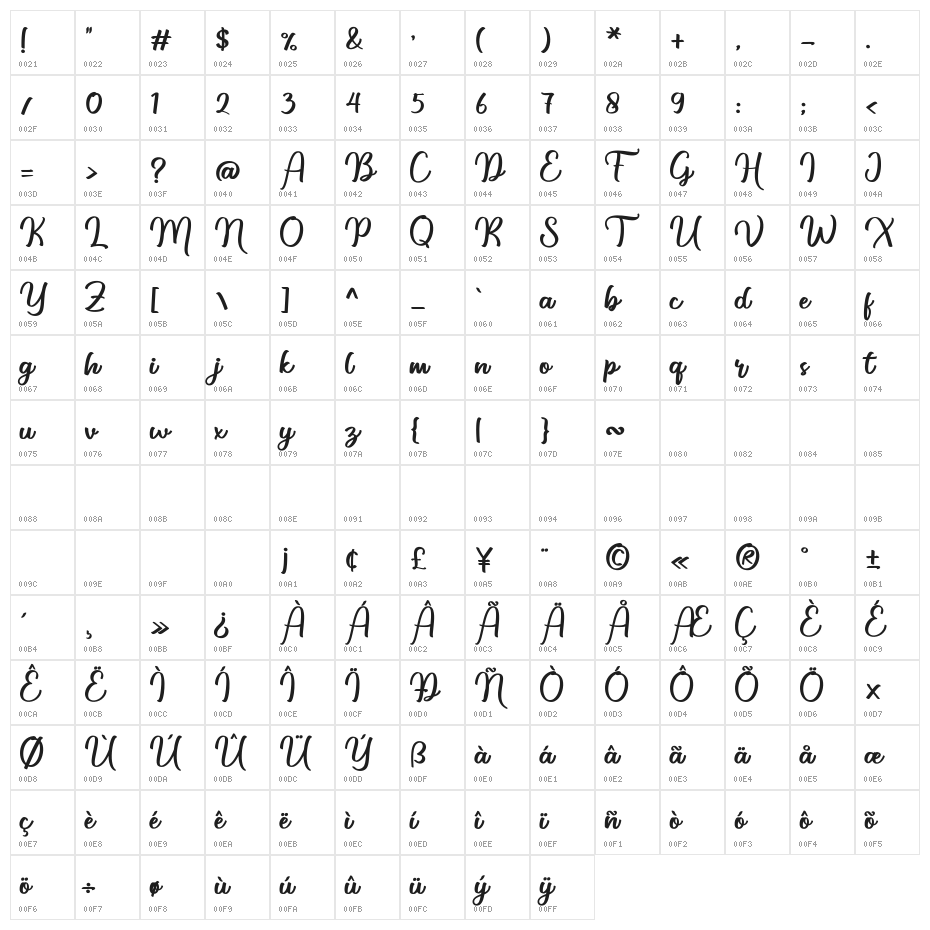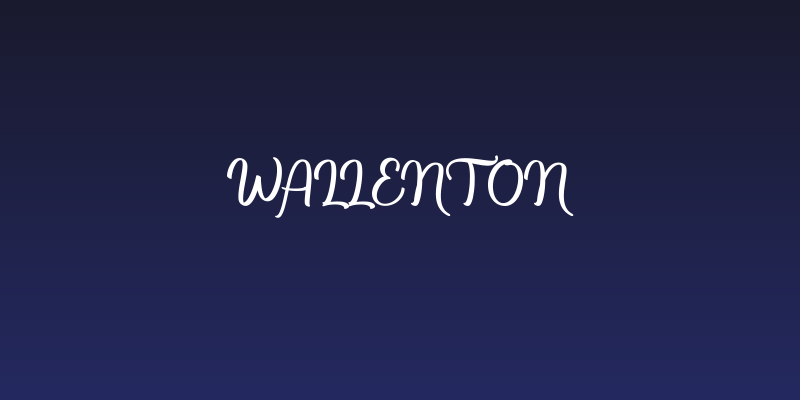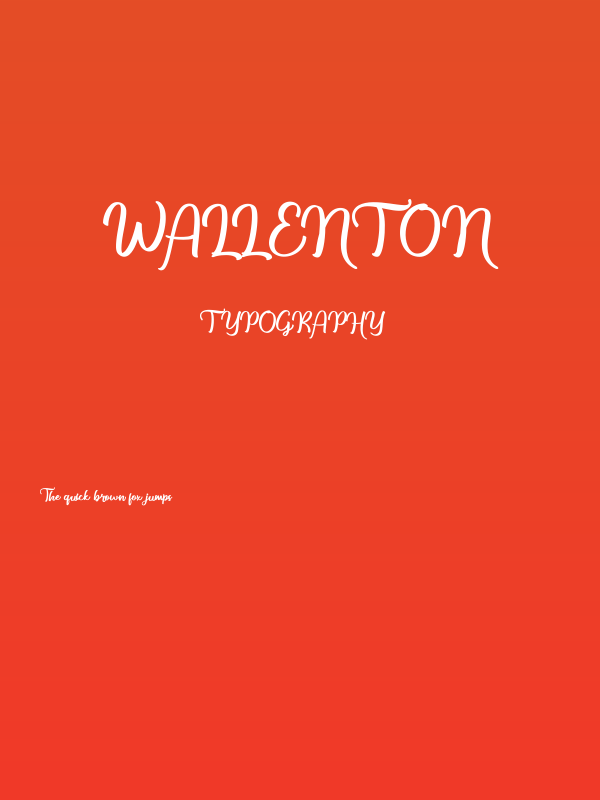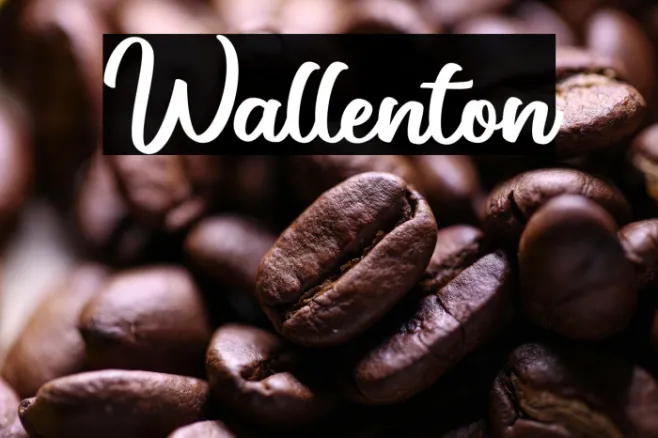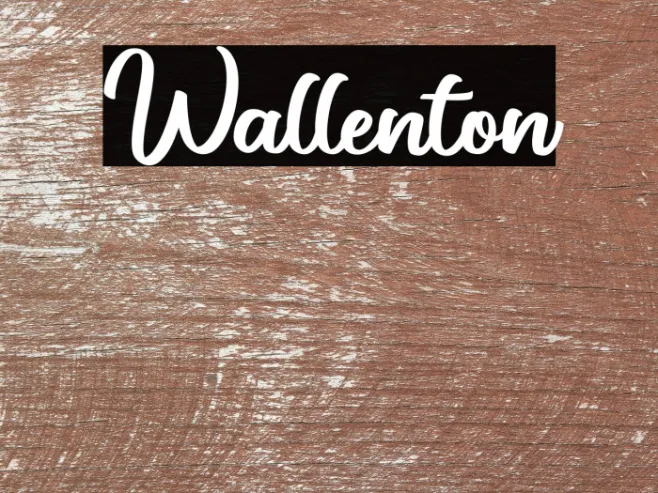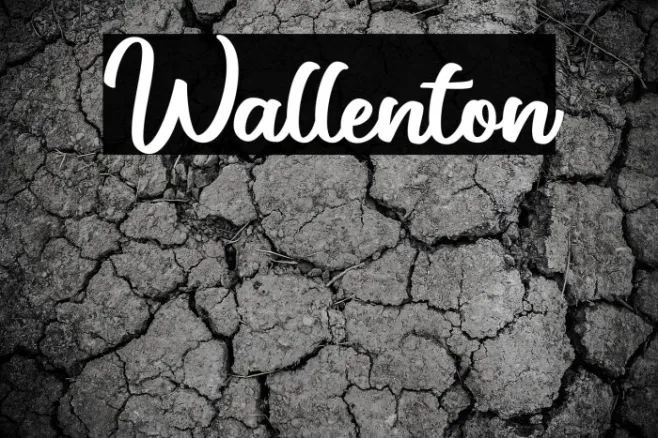
Wallenton Font
Wallenton Description
This font features a flowing, cursive style that exudes elegance and sophistication. The letters are interconnected, creating a seamless and fluid appearance. The uppercase characters are tall and graceful, while the lowercase letters maintain a consistent rhythm with smooth curves and loops. The numerals are bold and clear, ensuring readability. Special characters are designed to complement the overall aesthetic, adding a touch of flair. This font is perfect for projects that require a personal, handwritten touch, such as invitations, greeting cards, and branding materials.
| Proposed Projects | Ideal for wedding invitations, greeting cards, logos, and branding materials. |